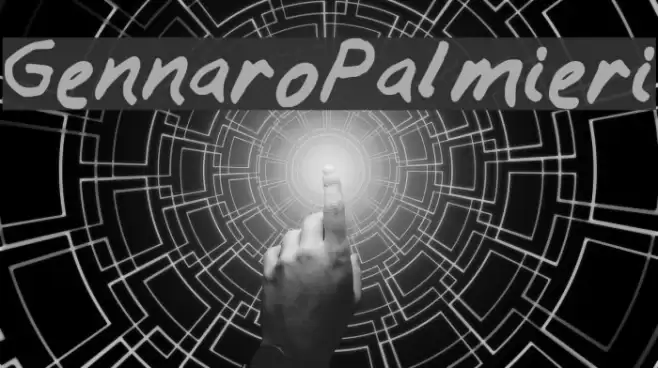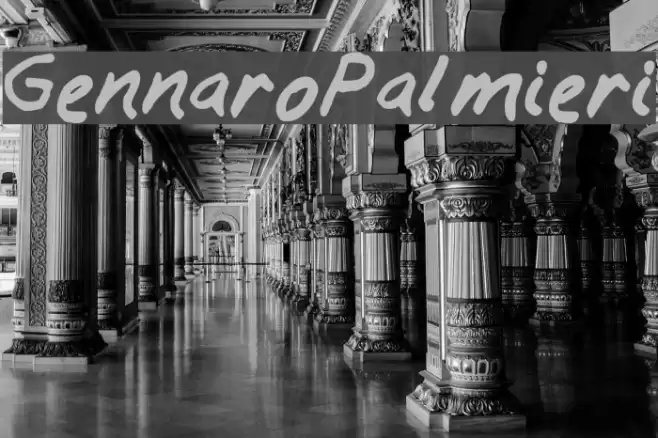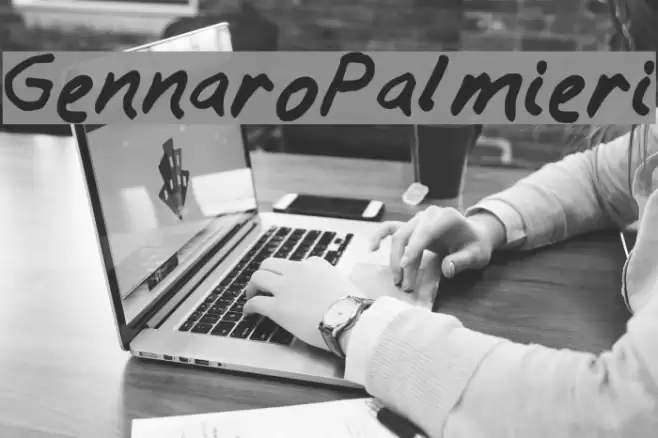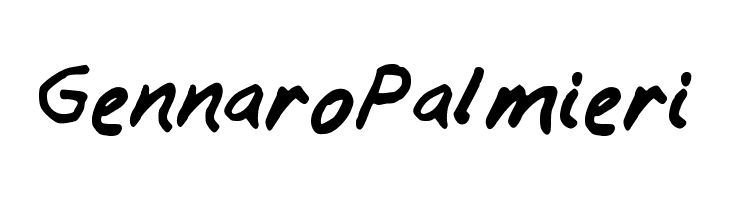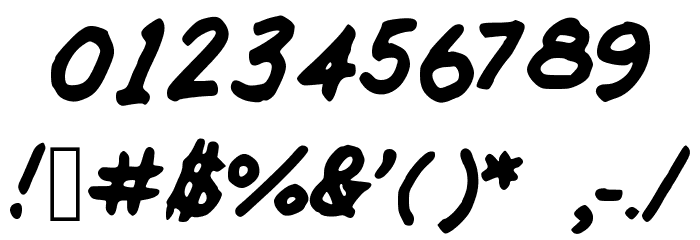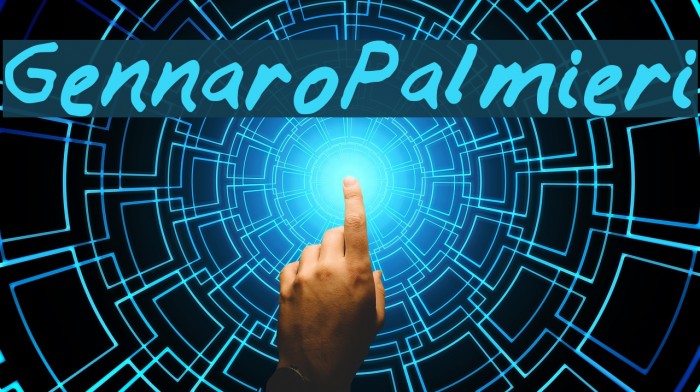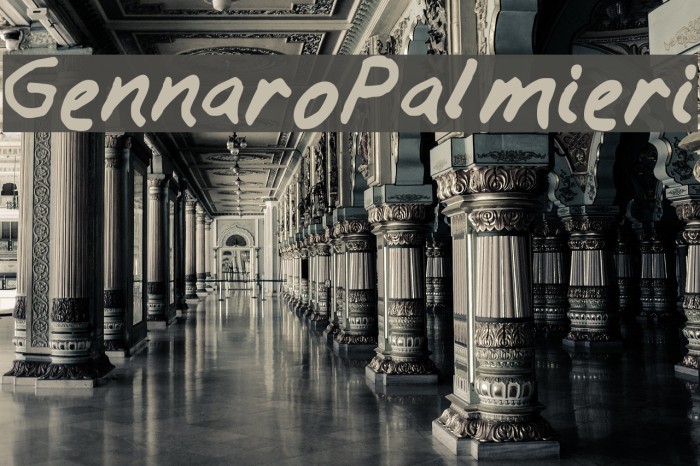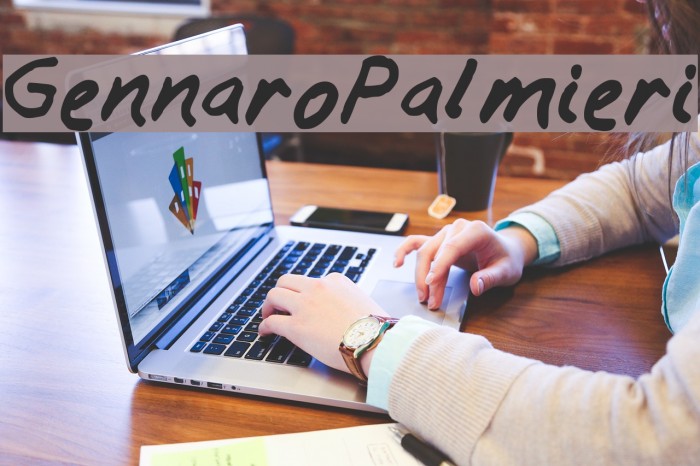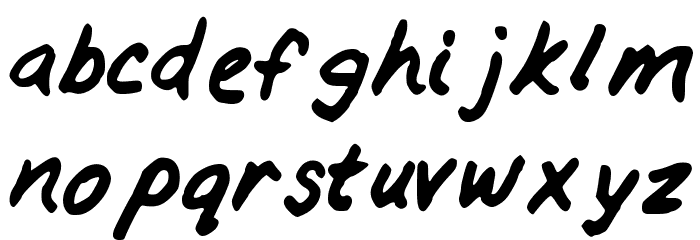
GennaroPalmieri Font
GennaroPalmieri Description
This font features a playful and dynamic handwritten style, characterized by its fluid and slightly irregular strokes. The uppercase letters maintain a consistent height, while the lowercase letters exhibit a charming variability in size and shape, adding to the font's informal and friendly appearance. The numerals are bold and clear, ensuring readability. Special characters are creatively integrated, maintaining the overall whimsical aesthetic. This font's organic flow and casual elegance make it suitable for a variety of creative applications.
A playful, handwritten font with fluid strokes and a dynamic, informal style from Uncategorized fonts.
- Proposed Projects: Ideal for greeting cards, invitations, personal branding, and creative projects that require a friendly and approachable touch.
- Overall Style: Casual, Playful
- Use Case: Logos, Invitations, Greeting Cards